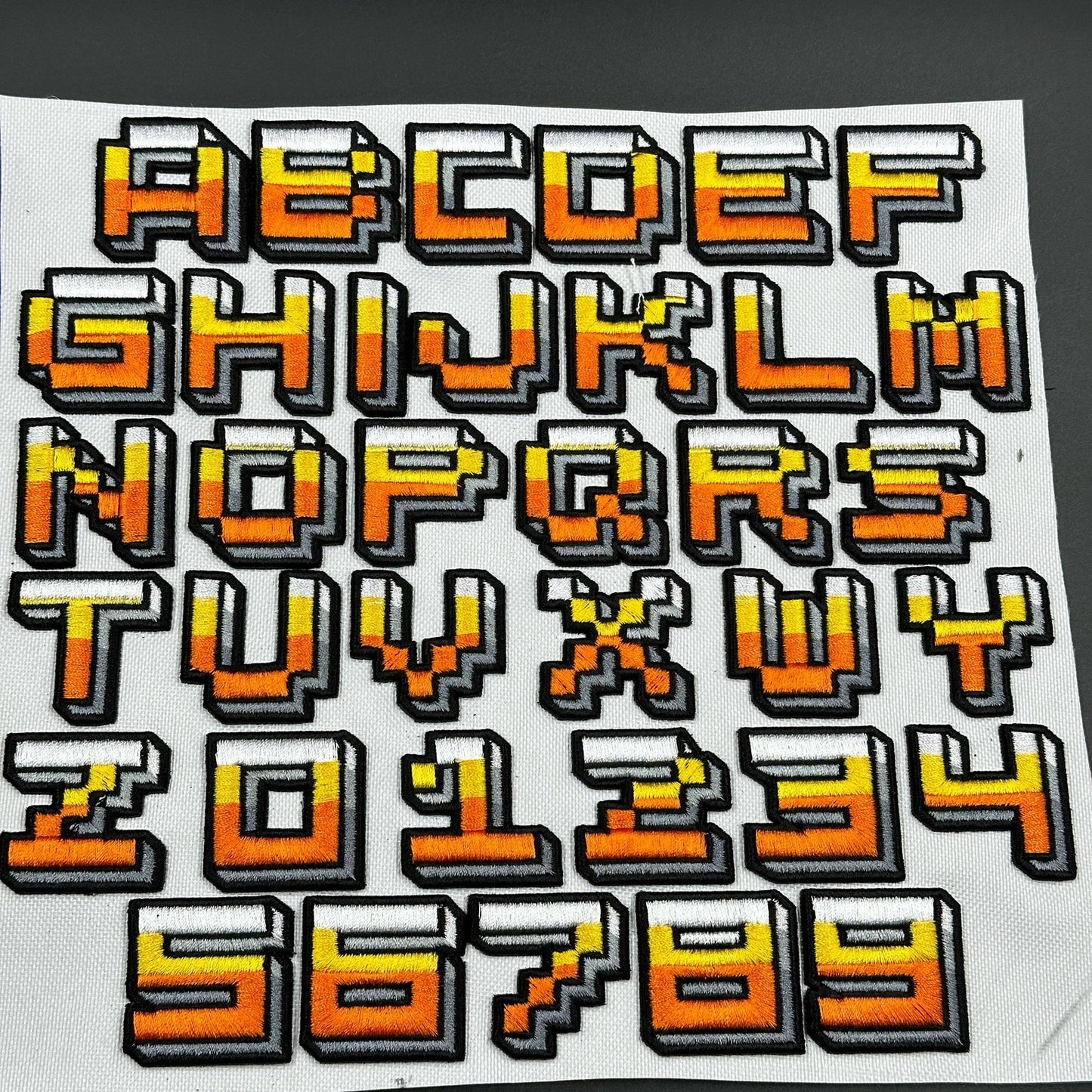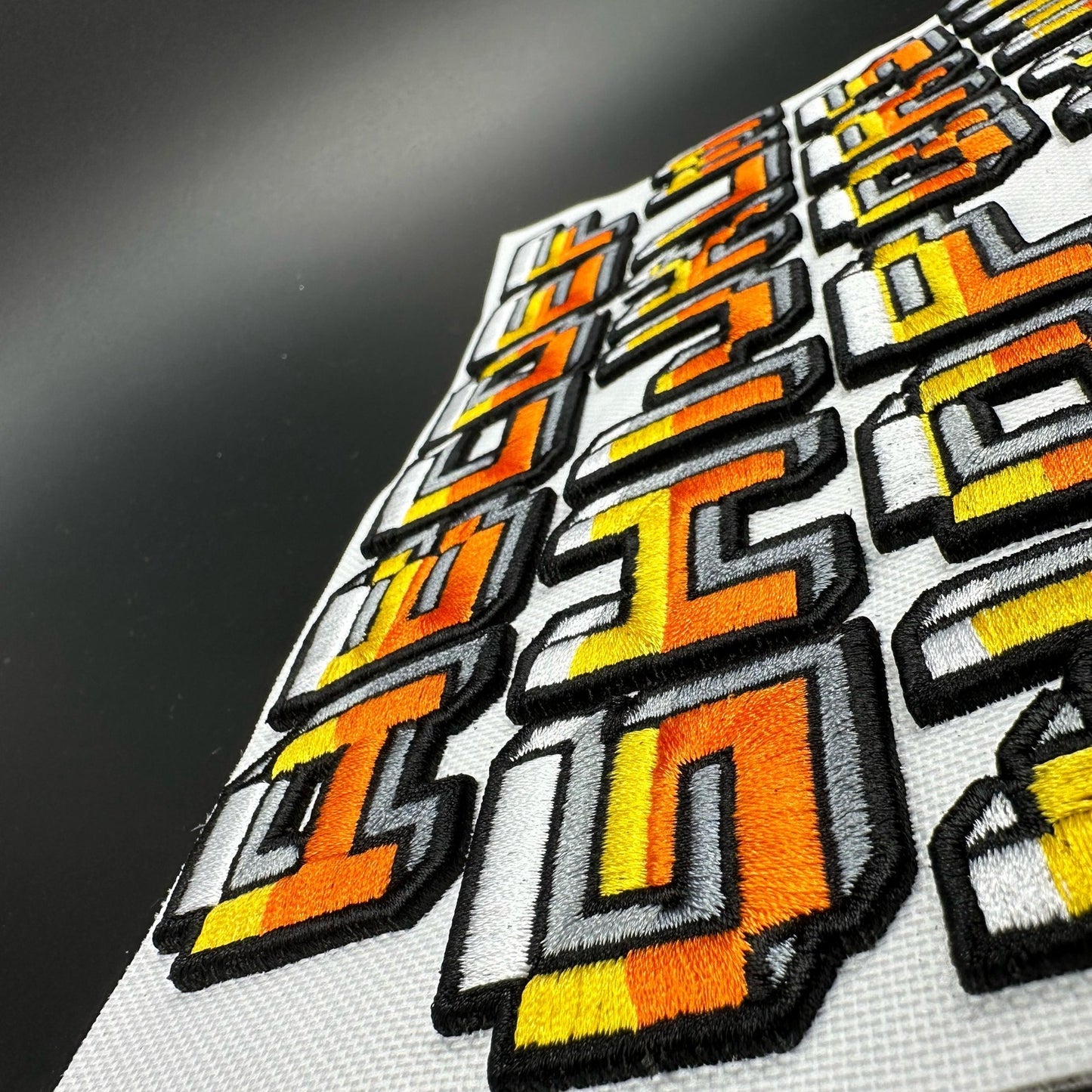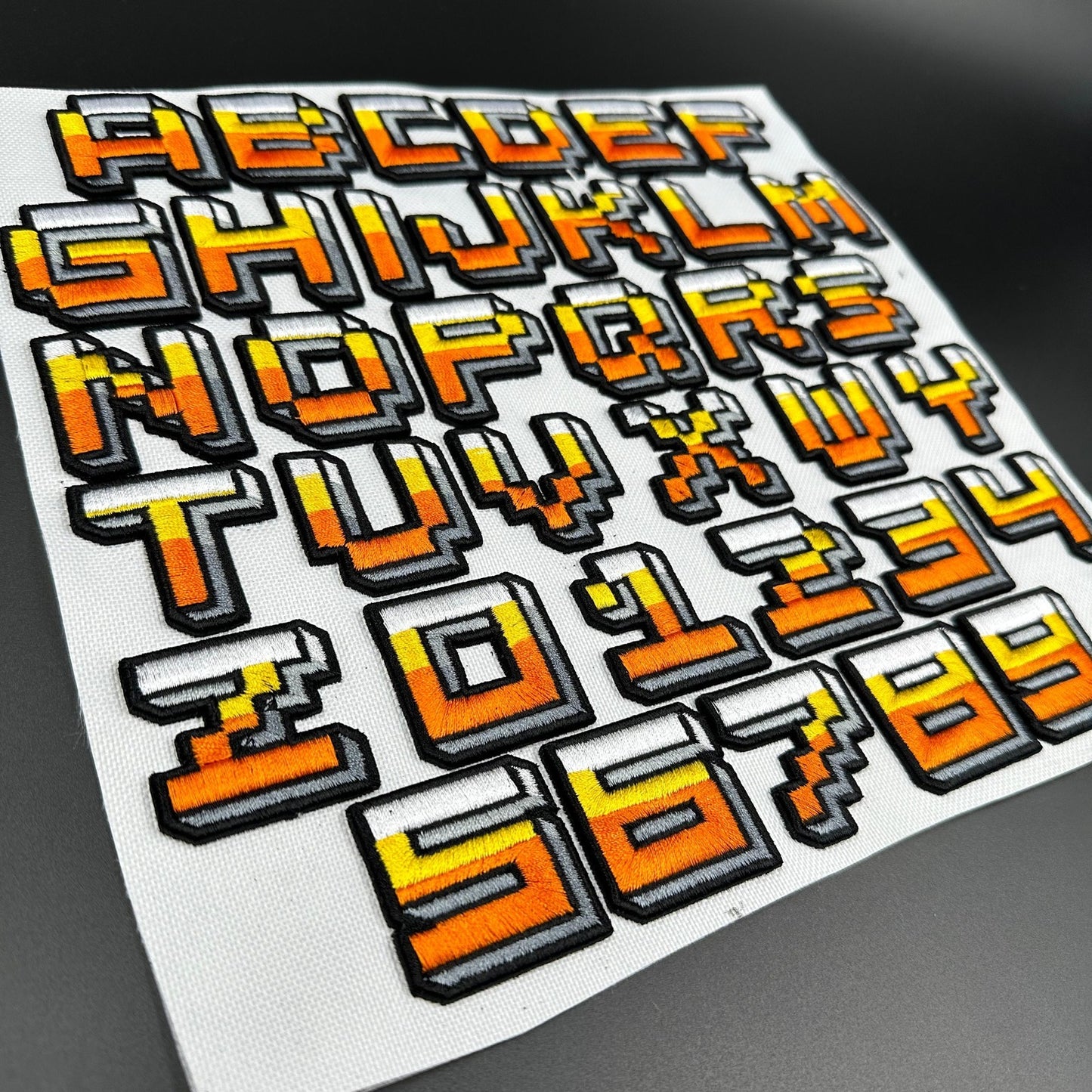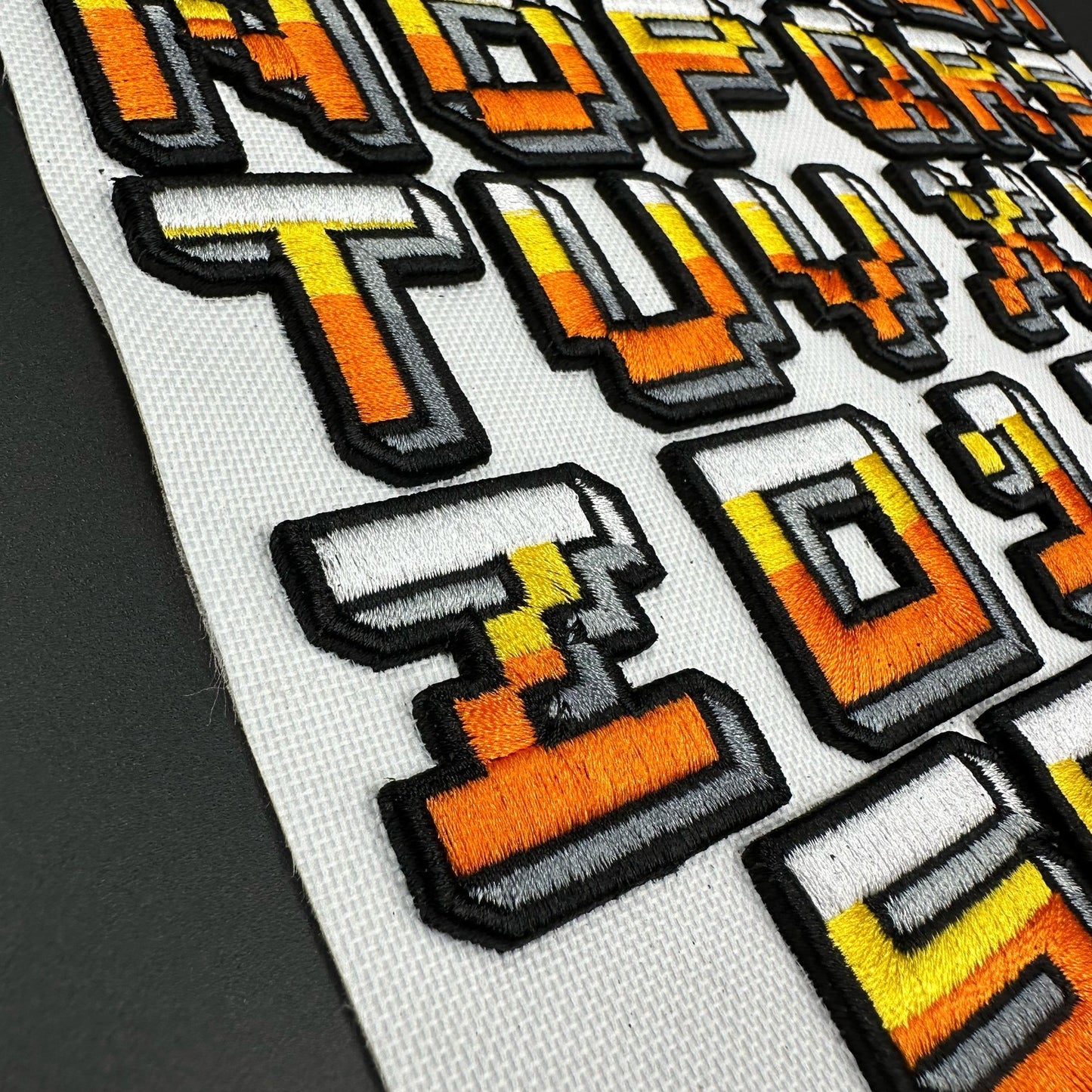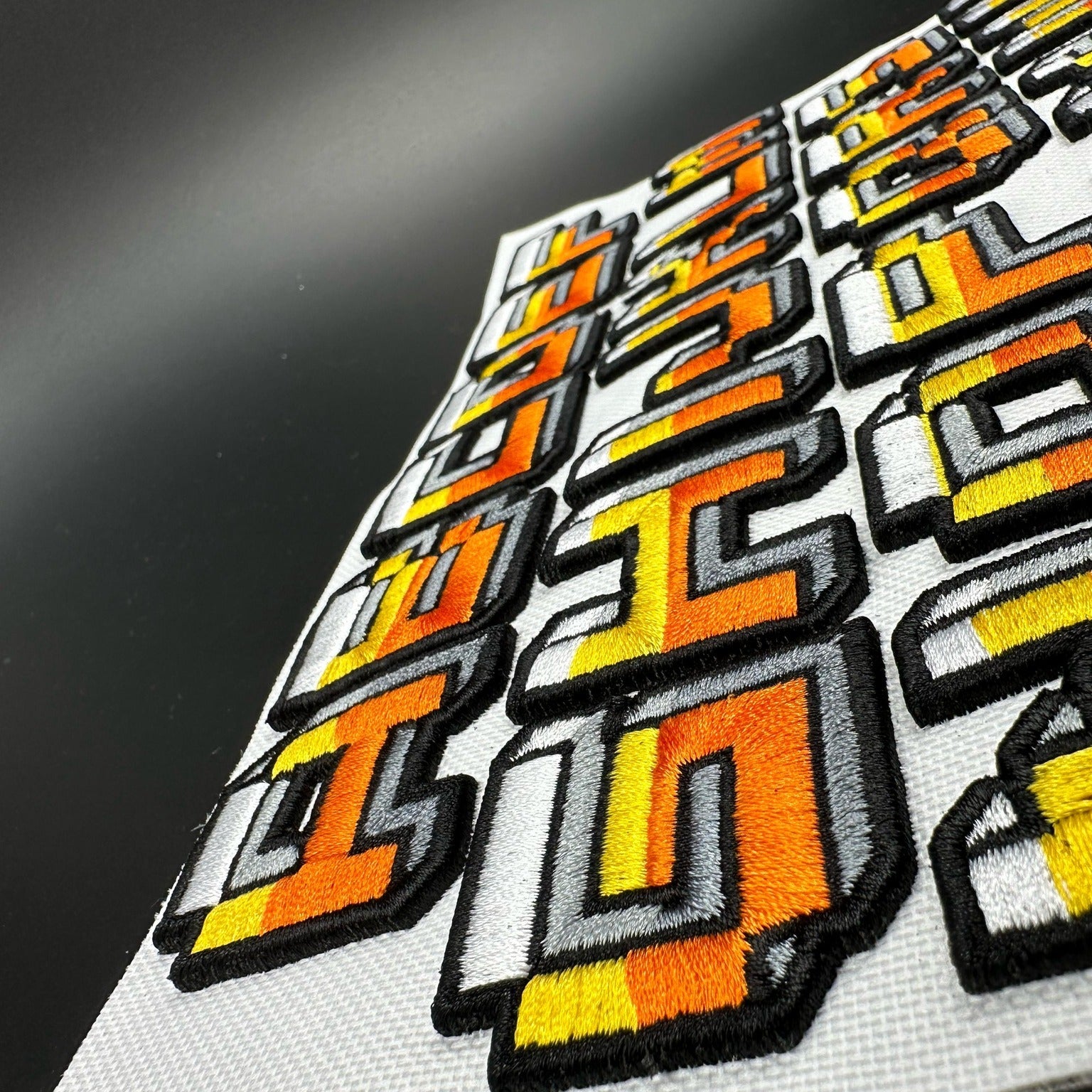
Graffiti Block 3D Puff Font
Bring street art vibes to your project with the Graffiti Block 3D Puff Font! Featuring thick, raised letters in striking orange, yellow, and gray gradients with bold black outlines, this font packs dimension and urban attitude.